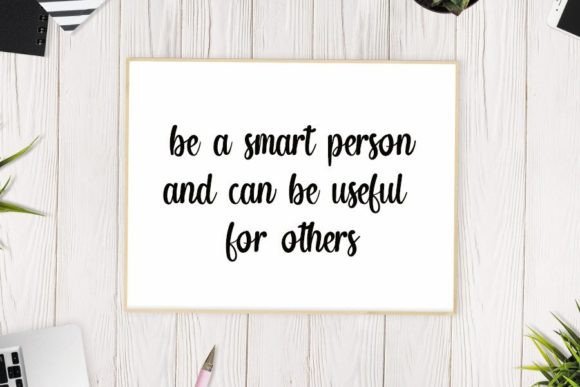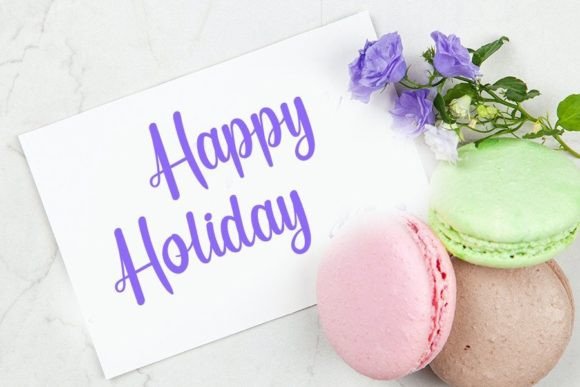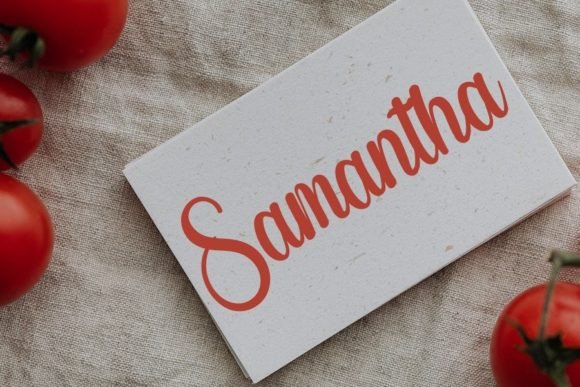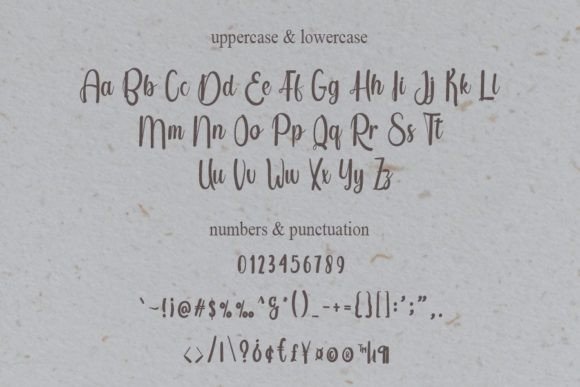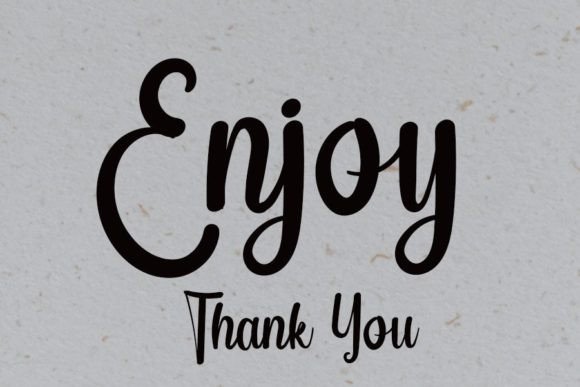
Introducing Enjoy Font: The Sweet and Delicate Handwritten Font for Romantic Designs
Are you a designer or crafter looking for a font that can add a touch of romance and personality to your designs? Look no further than Enjoy Font, a sweet and delicate handwritten font that’s perfect for creating beautiful wedding invitations, cards, and other designs that require a personal touch.
What Makes Enjoy Font Special?
Enjoy Font is a unique and charming handwritten font that’s designed to bring a sense of joy and elegance to your designs. Its dainty and delicate strokes make it ideal for creating romantic and feminine designs that will capture the hearts of your audience. Whether you’re designing wedding invitations, greeting cards, or other paper crafts, Enjoy Font is the perfect choice.
Key Features of Enjoy Font
- Sweet and delicate handwritten font: Enjoy Font features beautiful, flowing strokes that give it a personal and handmade feel.
- Dainty and joyful: The font’s dainty and joyful design makes it perfect for creating romantic and uplifting designs.
- Ideal for wedding invitations and cards: Enjoy Font is specifically designed for creating beautiful wedding invitations, cards, and other paper crafts.
- Romantic and personalized touch: The font’s unique and charming design adds a romantic and personalized touch to any design.
How to Use Enjoy Font in Your Designs
Using Enjoy Font in your designs is easy and straightforward. Here are a few tips to get you started:
- Pair it with other fonts: Enjoy Font pairs well with other fonts, especially serif and sans-serif fonts. Experiment with different font combinations to create unique and interesting designs.
- Use it for headings and titles: Enjoy Font is perfect for creating beautiful headings and titles for your designs. Its elegant and cursive design makes it ideal for standing out.
- Add it to your digital and print designs: Enjoy Font can be used in both digital and print designs, making it a versatile font for designers and crafters.
Benefits of Using Enjoy Font
There are many benefits to using Enjoy Font in your designs. Here are a few:
- Unique and distinctive design: Enjoy Font features a unique and distinctive design that will set your designs apart from others.
- Elegant and sophisticated: The font’s elegant and sophisticated design makes it perfect for creating high-end designs.
- Easy to read: Enjoy Font is easy to read, making it perfect for designs that require a lot of text.
- Versatile: The font can be used in a variety of designs, from wedding invitations to cards and other paper crafts.
Who Can Benefit from Enjoy Font?
Enjoy Font is perfect for designers and crafters who specialize in creating romantic and personalized designs. Here are a few examples:
- Wedding designers: Enjoy Font is perfect for creating beautiful wedding invitations, wedding cards, and other wedding-related designs.
- Stationery designers: The font is ideal for creating beautiful stationery, including greeting cards, thank-you cards, and other paper crafts.
- Graphic designers: Enjoy Font can be used in a variety of graphic design projects, from branding and packaging to digital and print designs.
Enjoy Font is a sweet and delicate handwritten font that’s perfect for creating romantic and personalized designs. Its unique and charming design makes it ideal for wedding invitations, cards, and other paper crafts. With its elegant and sophisticated design, Enjoy Font is sure to add a touch of romance and personality to your designs.